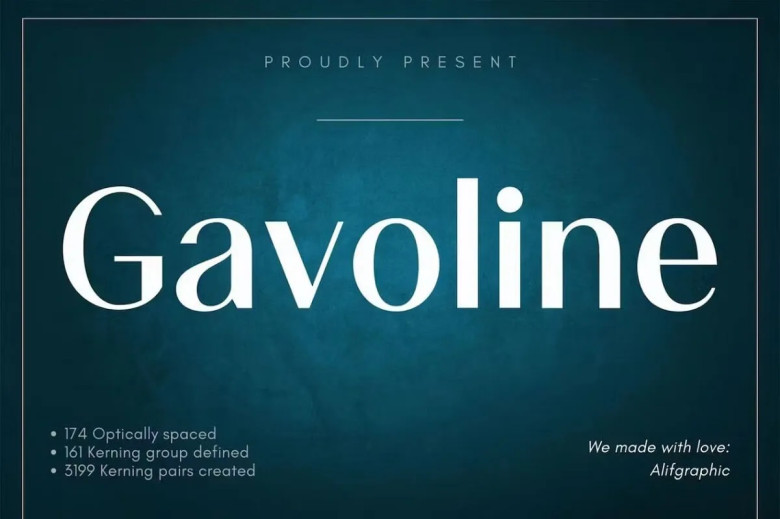
Gavoline Font
Gavoline font is an elegant collection of letters that makes up this font name. It offers modernity while remaining elegant for writing purposes. At our core is neatness of letter. With this font you have endless opportunities for creativity and fun!
Gavoline Sans Serif Font